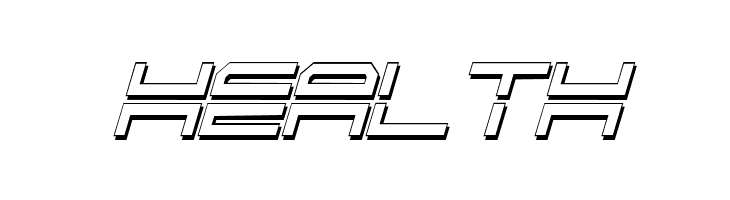
Magnite Lavingo Font
- Font: Magnite Lavingo
A bold, italicized font with a futuristic shadow effect and geometric design.
A futuristic, geometric font with strong horizontal lines and angular shapes.
A futuristic, italicized, and condensed font with angular lines and geometric shapes.
A futuristic, italicized font with a shadow effect and sharp geometric lines.
A futuristic, italicized font with angular, geometric letterforms.
A futuristic, geometric font with a condensed and angular design.